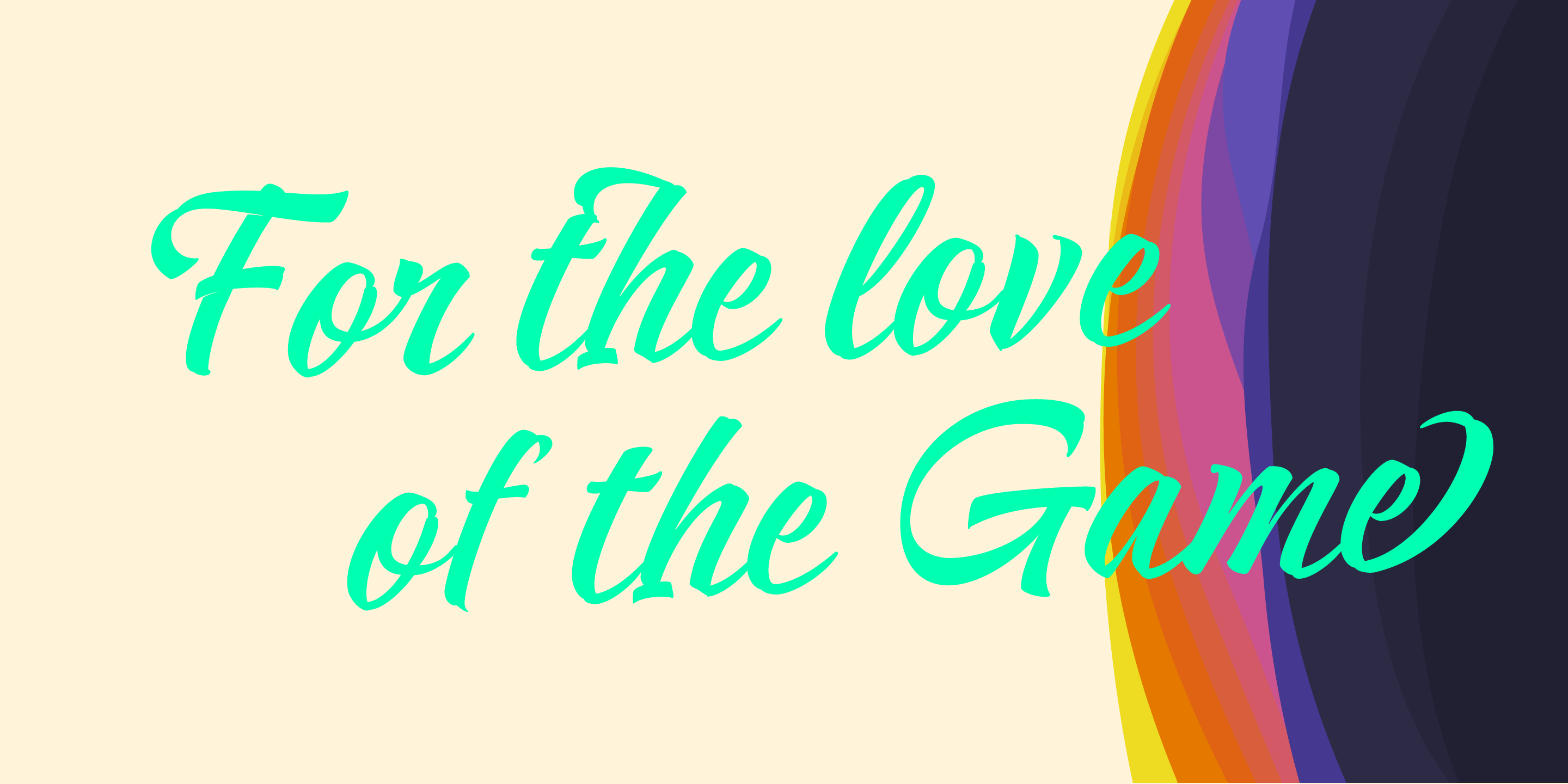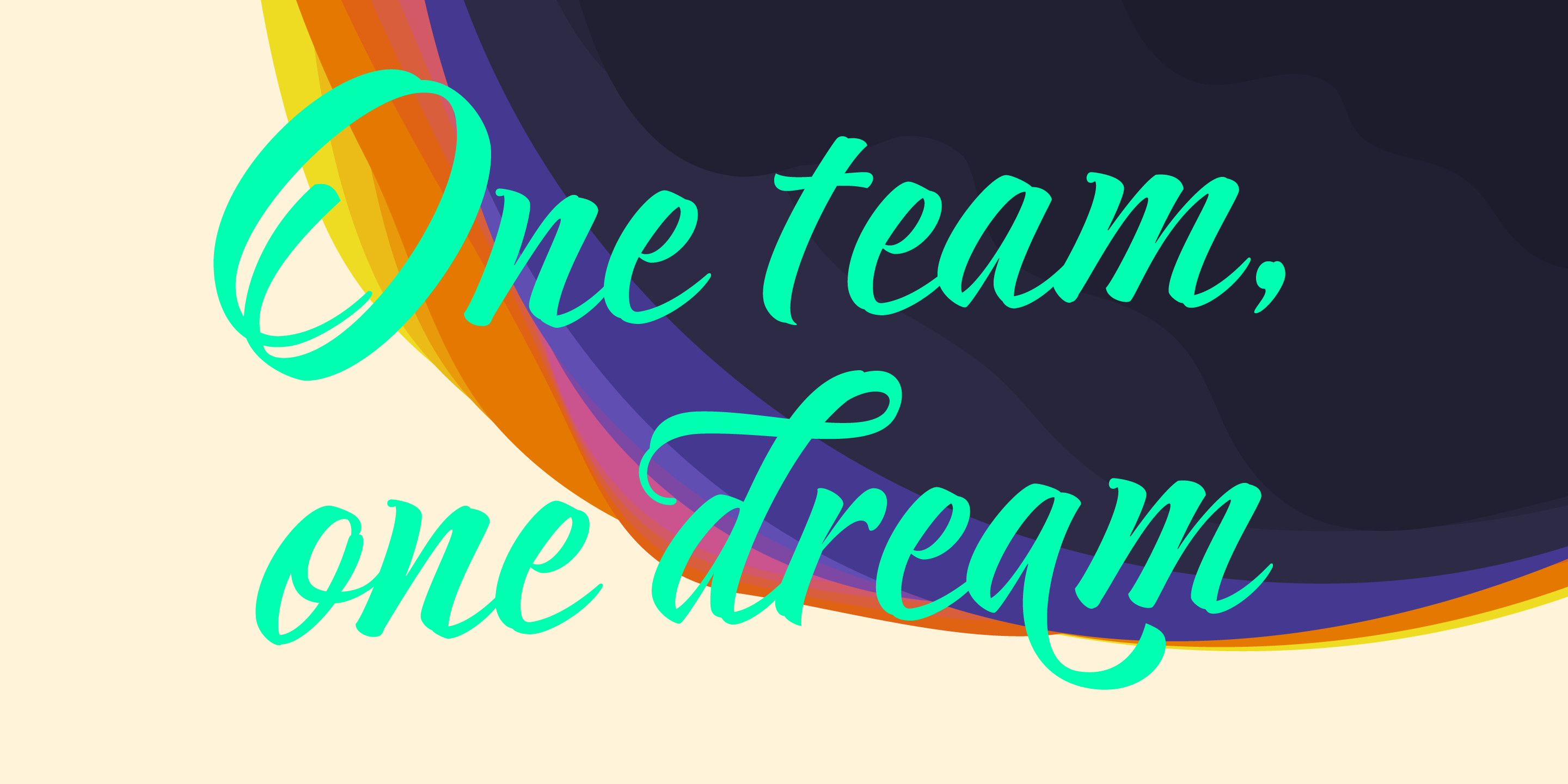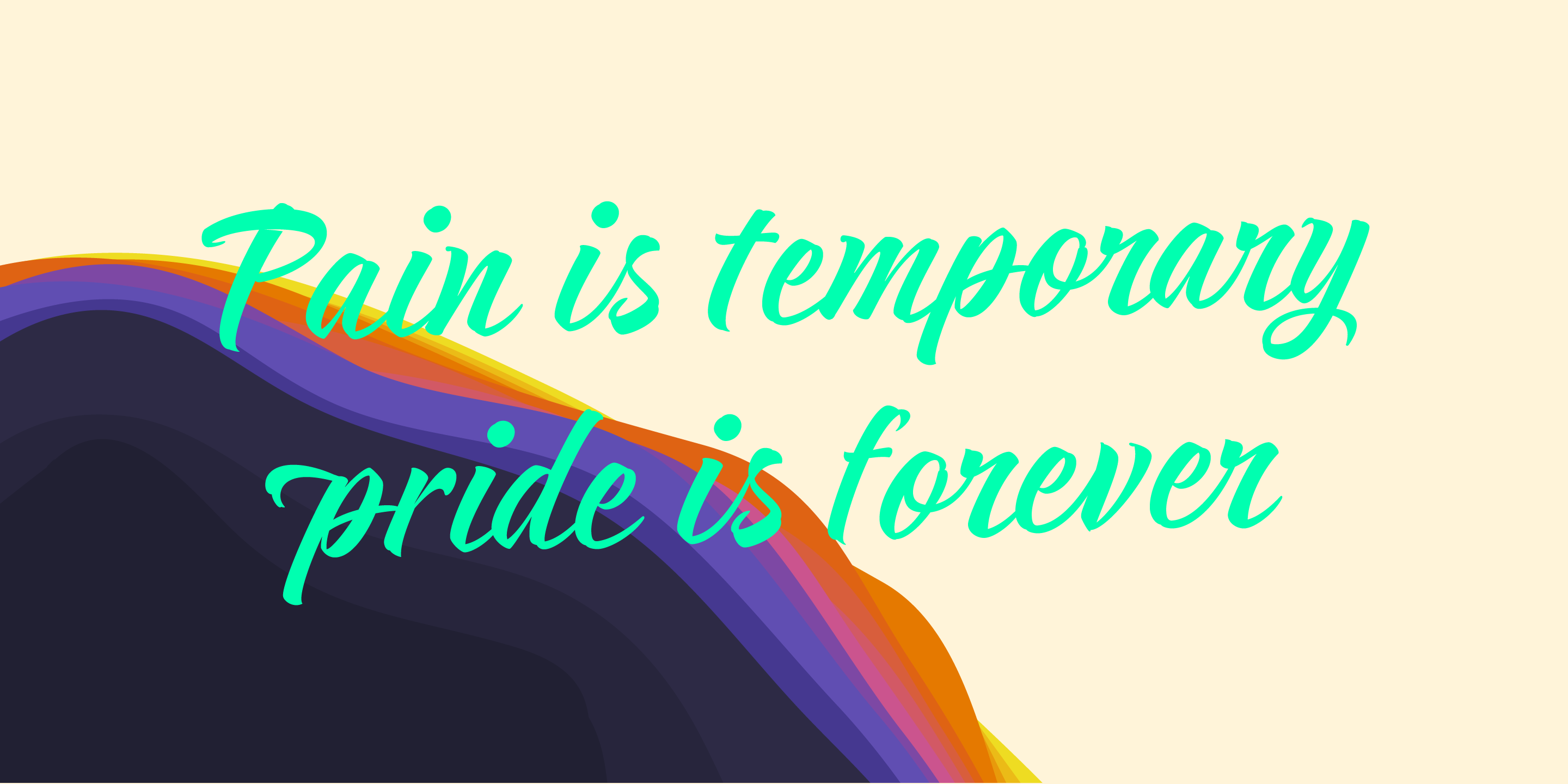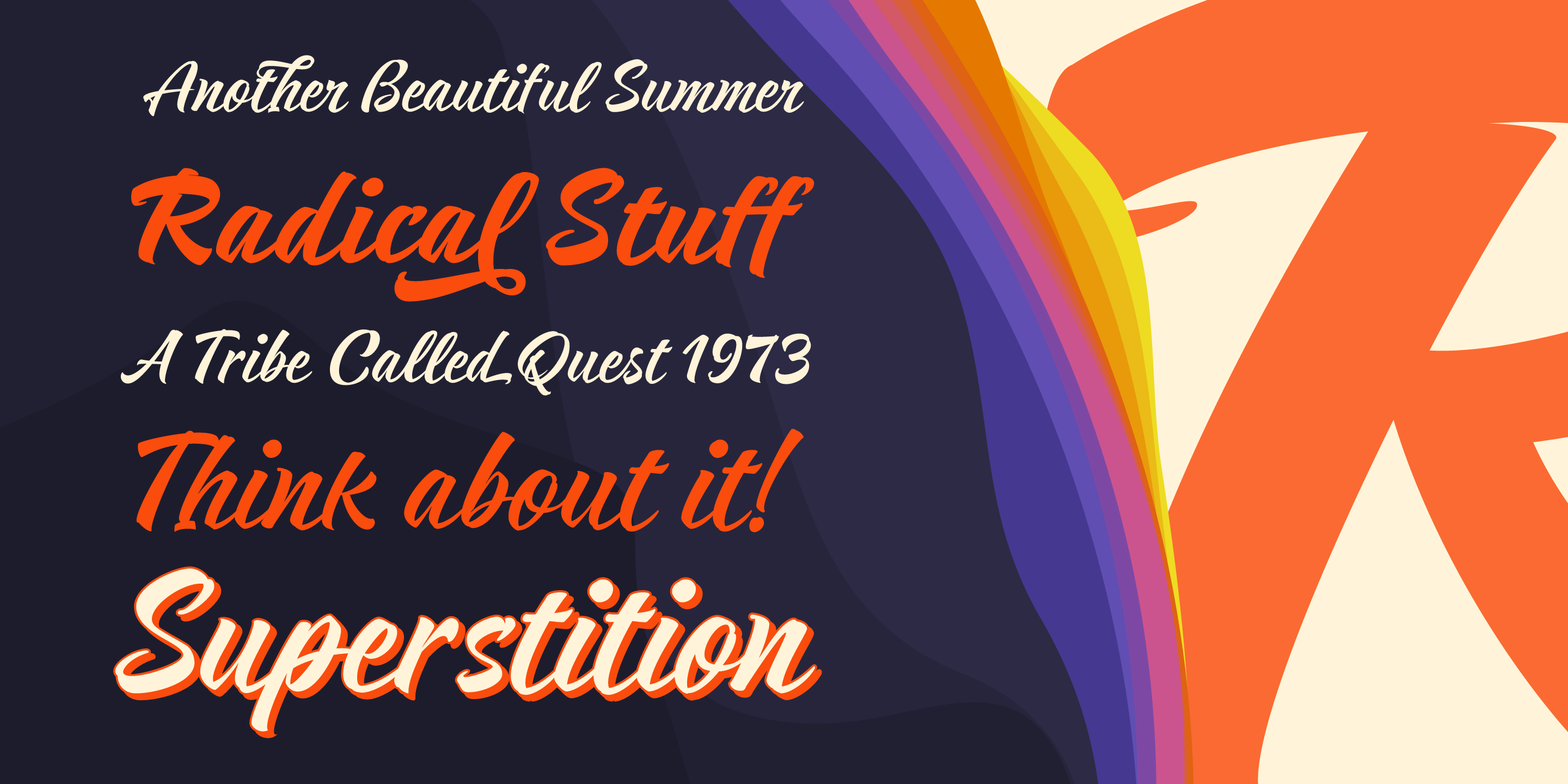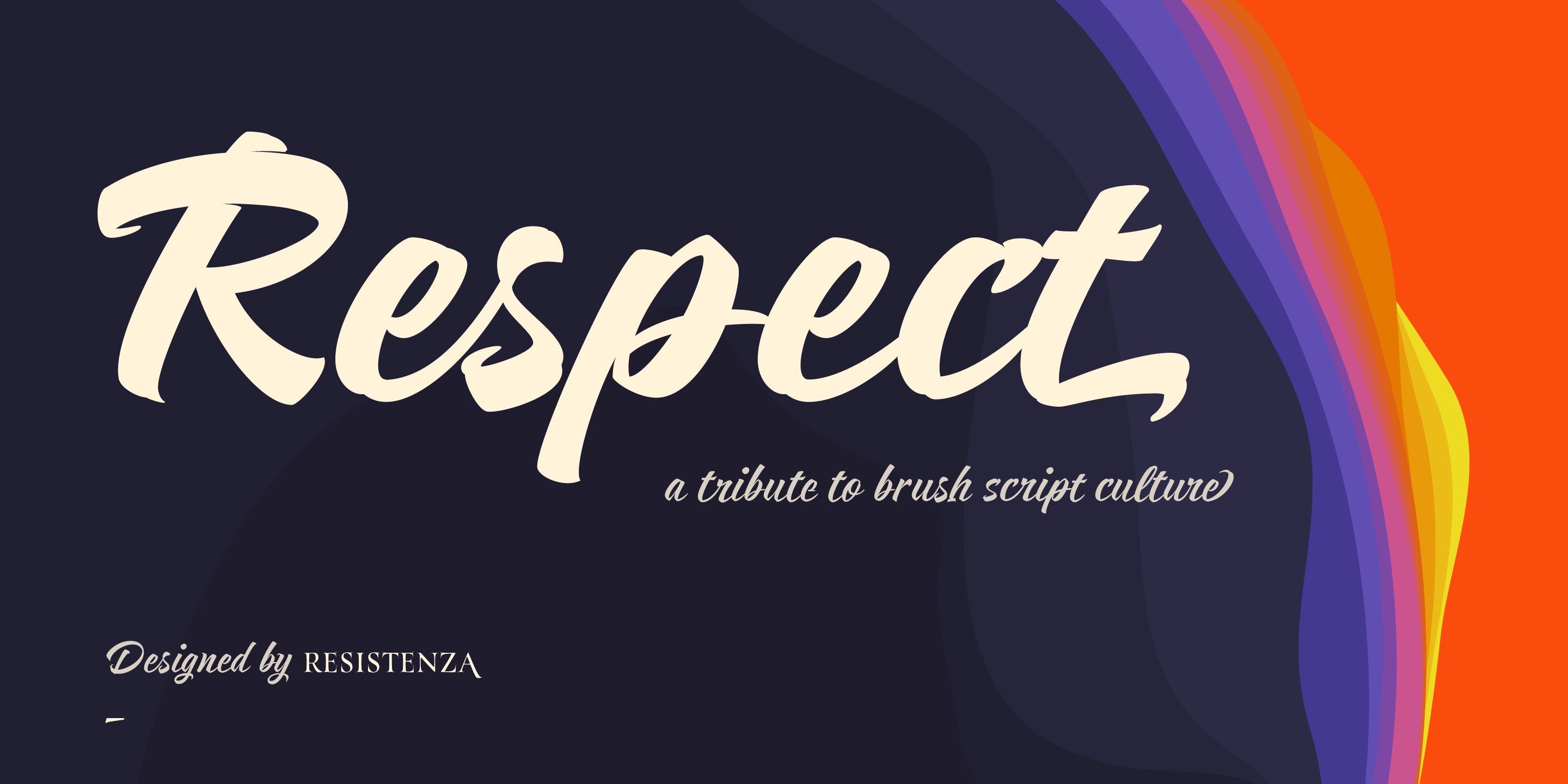
Respect
Our tribute to hand lettering culture
Respect
Designed by Resistenza Type FoundryThis exuberant new script font family draws inspiration from the traditional craftsmanship of sign painting and brush pen calligraphy techniques.
Our aim was to create a modern interpretation of brush script, which referenced old-school hand lettering but also adds some contemporary forms, terminations and swashes you might expect to find in street art.
The slanted angles and curved steams are designed to give this font an active energy, plenty of attitude and a courageous/brave character.